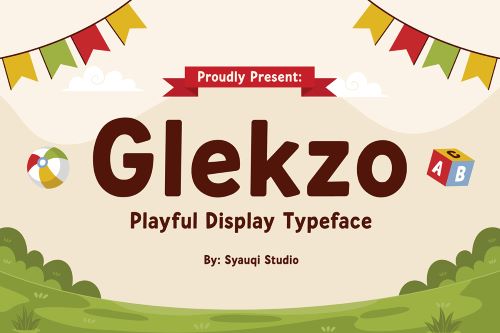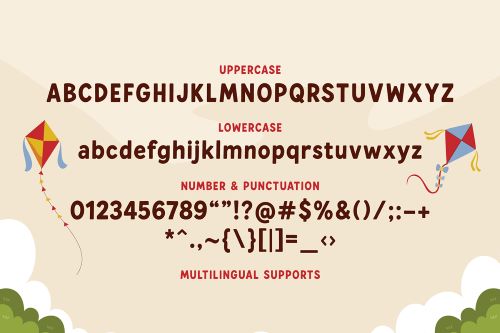
Glekzo Font
Glekzo font
Glekzo is a lively display typeface created to bring energy, character, and fun into your designs. With its bold curves, quirky shapes, and friendly flow, Glekzo delivers a bright, engaging style that instantly captures attention and adds personality to any project.
➤ Font Name: Glekzo
➤ Designer: Syauqi Studio
➤ Style: Playful Display
Glekzo font